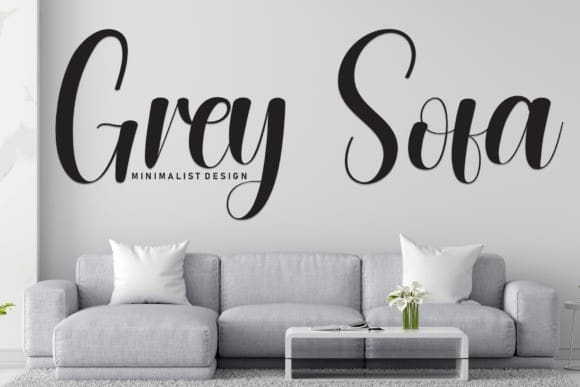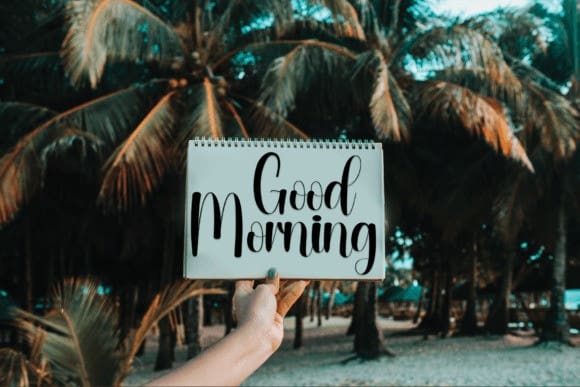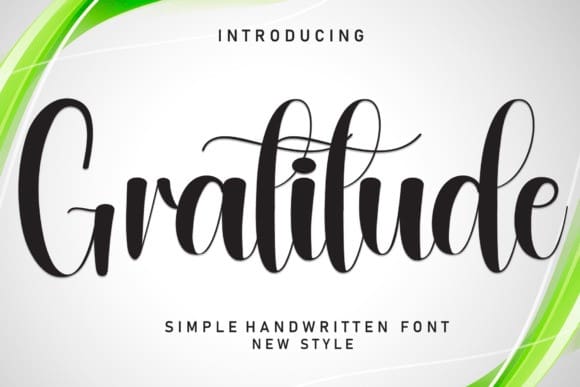
Gratitude Script Font
Gratitude Script Font, this is a sweet and friendly handwritten display font. Cute and fun, this font is ideal for writing wedding invitations, cards, or any other design that might need a fun touch!